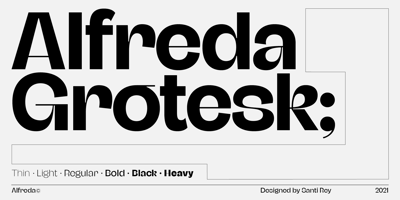
Alfreda
Alfreda font
Alfreda Font Family was designed by Santi Rey and published by Monotype. Alfreda contains 6 styles and family package options. Alfreda grotesque is not just another grotesque typeface. Its morphology mixes modulated and unmodulated strokes, and natural and reverse contrast. All that with a humanistic touch and subtle ink traps. Weird.Alfreda comes in 6 weights, it has open type features, more than 400 glyphs and 18 stylistic sets.